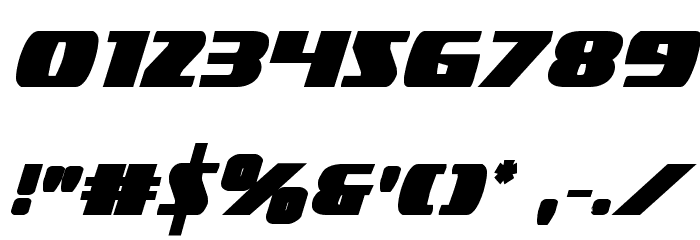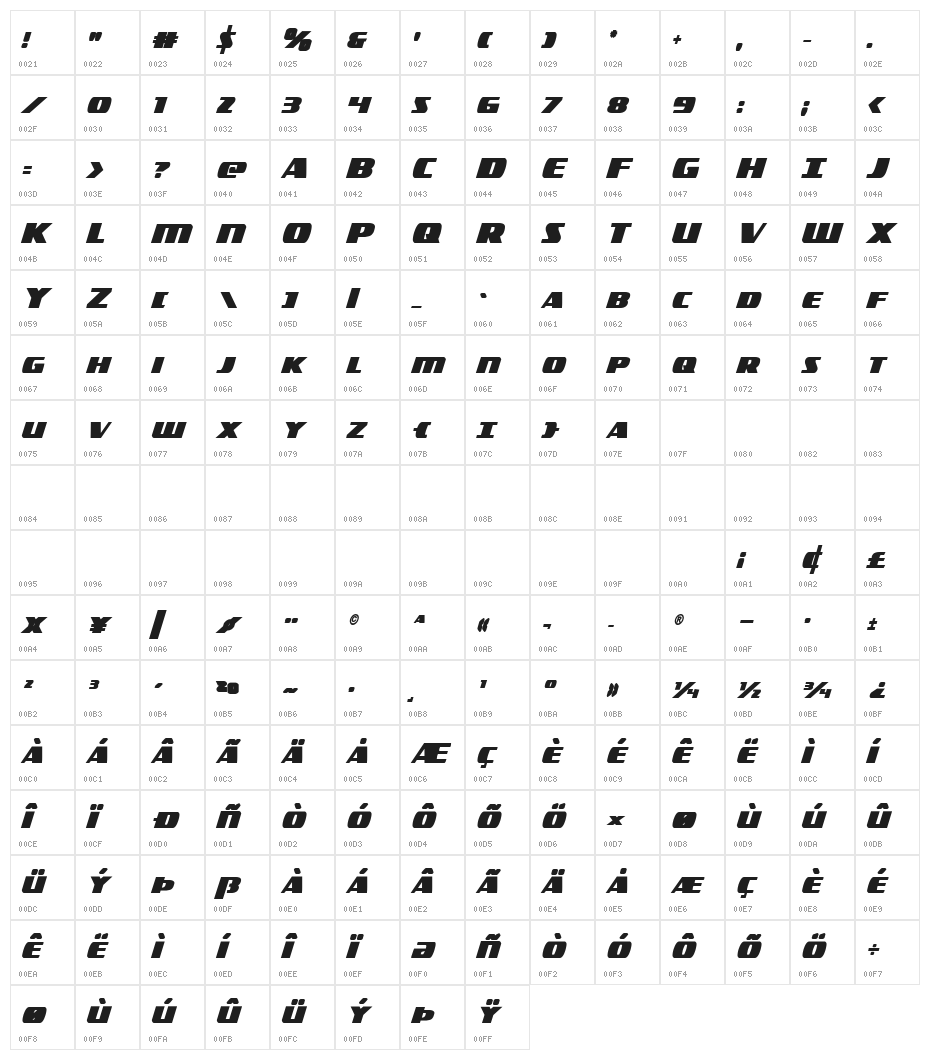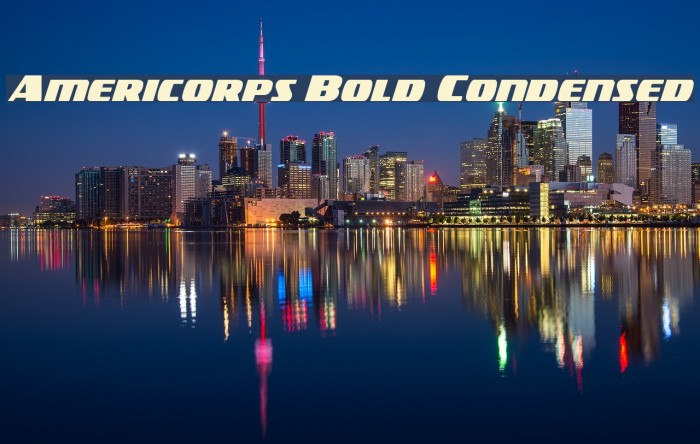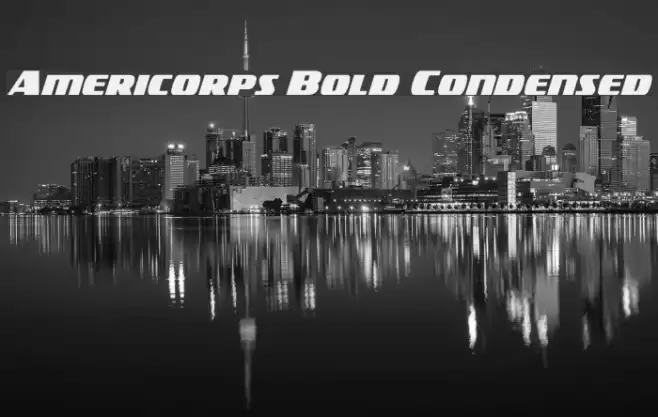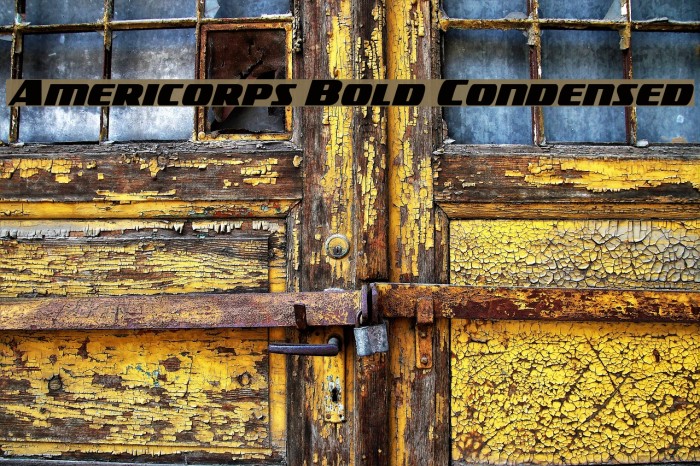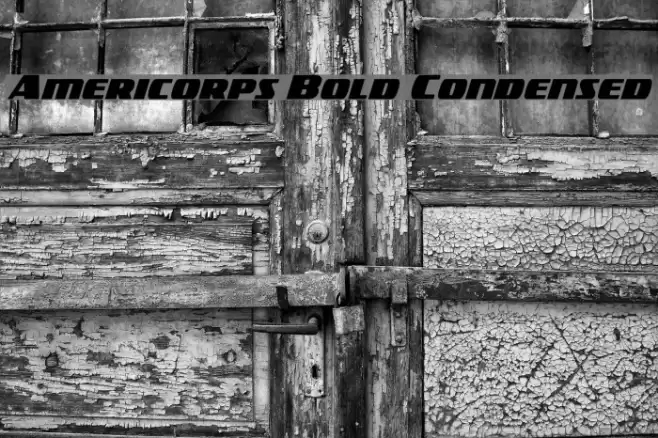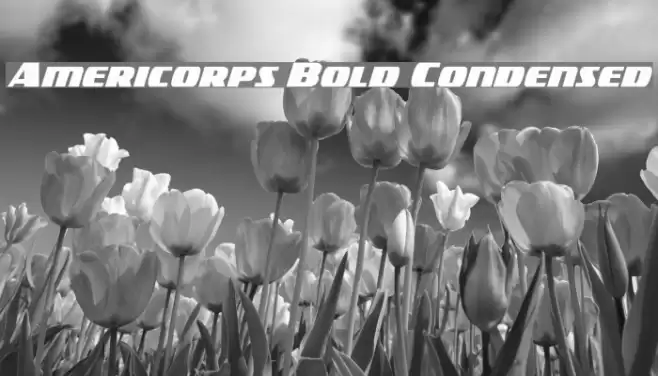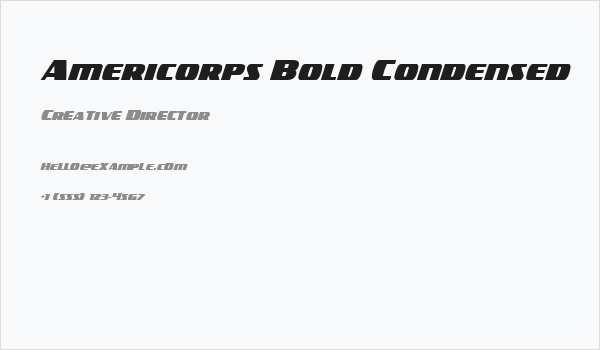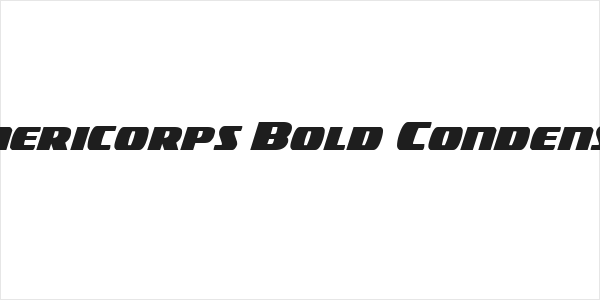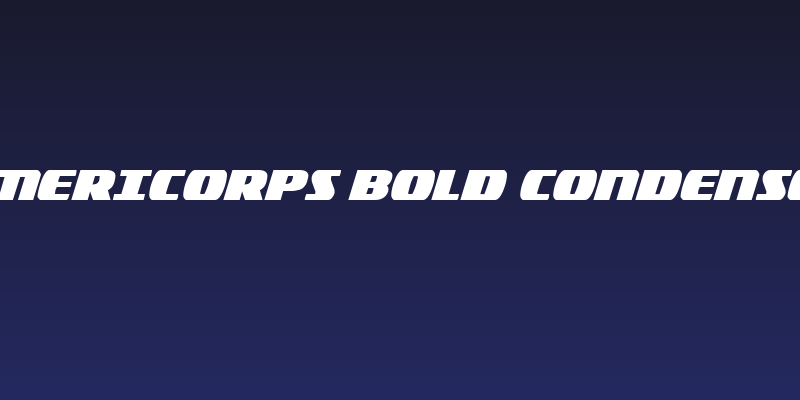
Americorps Bold Condensed Font
Americorps Bold Condensed Description
This font exhibits a bold and condensed style, characterized by strong, angular lines and a dynamic, forward-leaning posture. The uppercase and lowercase letters maintain a consistent height, contributing to a uniform appearance. The numerals are equally bold, ensuring readability and impact. Special characters are designed with the same boldness, integrating seamlessly with the alphabet. The overall design is modern and assertive, making it suitable for attention-grabbing applications.